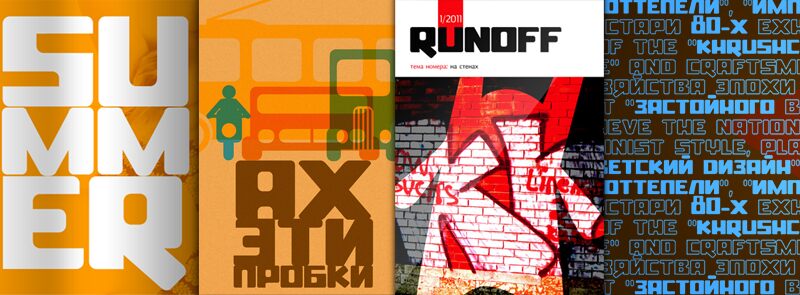
Ssboldin Bold by Serge Shi is a free futuristic display font with a massive, tightly packed silhouette. Broad verticals and squared curves give the letters an industrial, machine-cut look, sharpened by clipped corners and deep geometric notches. The small rectangular openings feel especially distinctive.
Technical diagrams and hard-edged product imagery share its cutout geometry, making the font useful for gaming graphics, electronics packaging, and science-fiction posters. In branding, those recurring slots and squared shapes can turn a logo into an emblem that suggests engineered hardware rather than conventional lettering for technology brands.